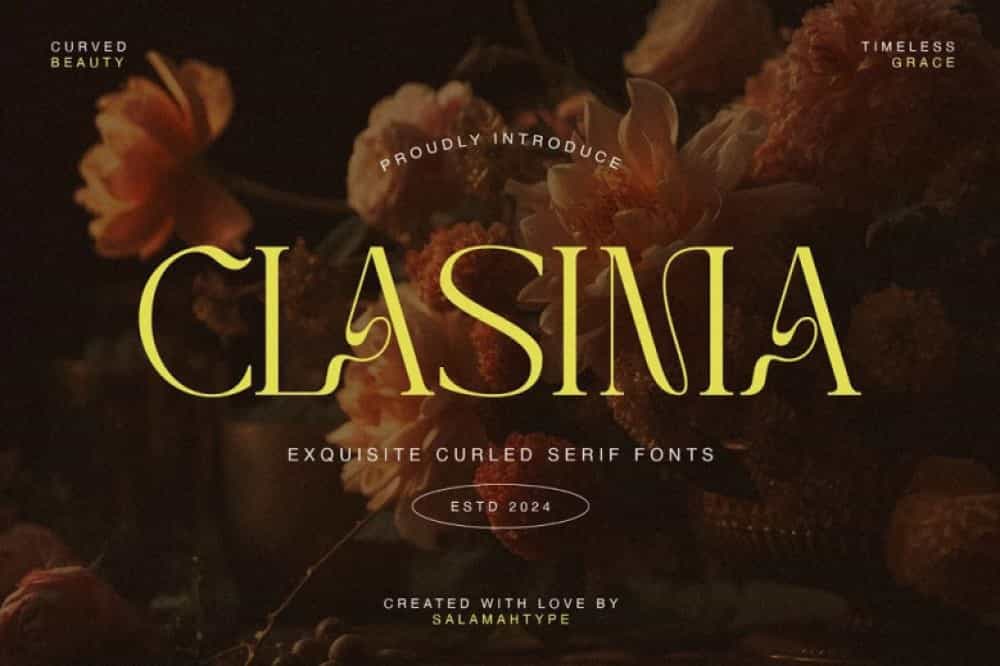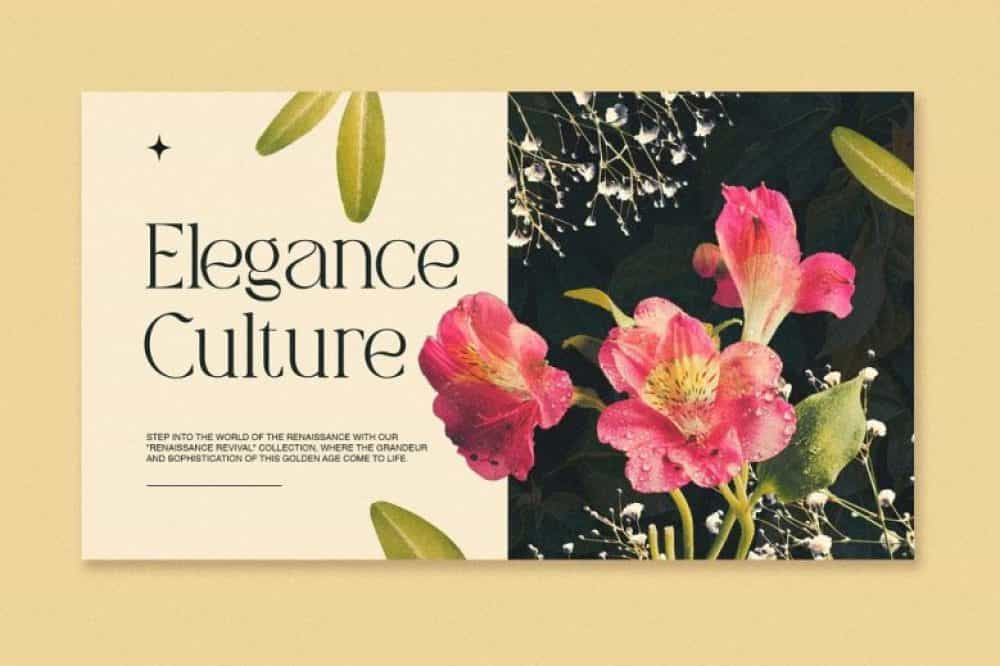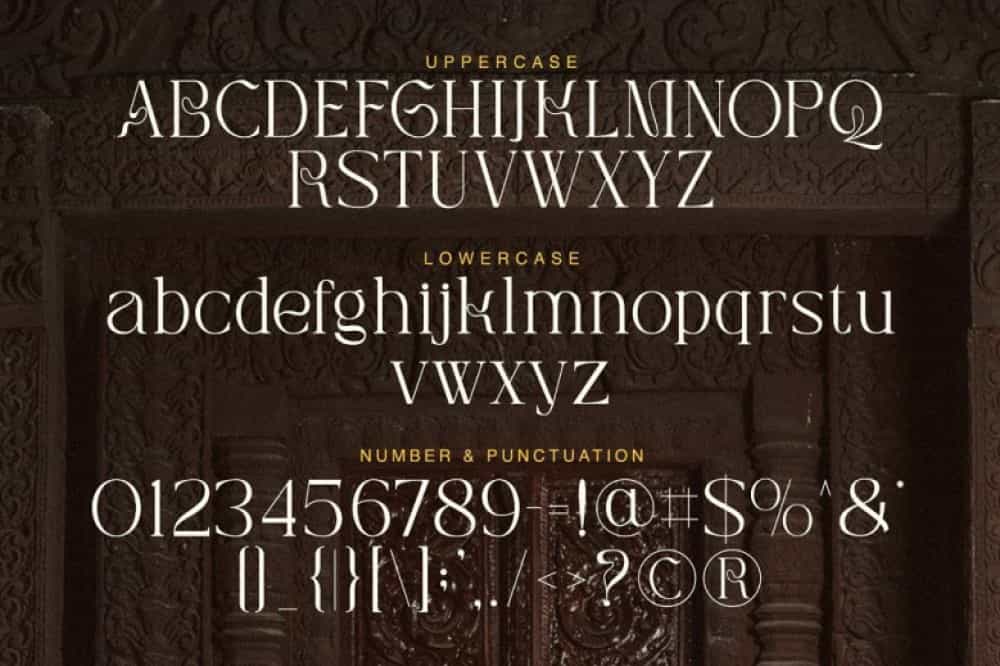
Clasima is a wonderful serif font with incredible Ligatures that is suitable for designing beauty logos for perfumes and other luxurious products. This type of design is characterized by the soft style that brings improvement and elegance, which makes it perfect for businesses that wish to convey the message of class and style.